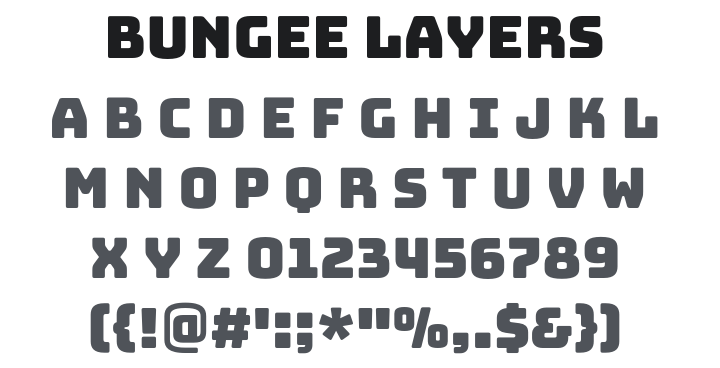
Bungee Layers Font Family
by David Jonathan Ross
Bungee Layers Font Family
• Bungee Layers Regular
• Bungee Layers Inline
• Bungee Layers Outline
• Bungee Layers Shade
About Bungee Layers
In the crowded urban environment, space for signage is always at a premium. From dumpy liquor stores to majestic theaters, sometimes signs have nowhere to go but up. Bungee is a font family that celebrates urban signage. It wrangles the Latin alphabet to work vertically as well as horizontally.
3 variations are available: Bungee, Bungee Layers and Bungee Layers Rotated.